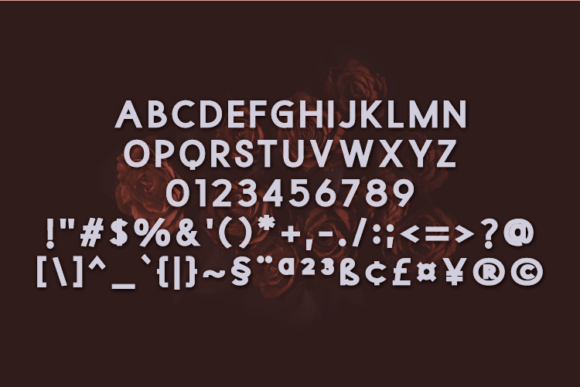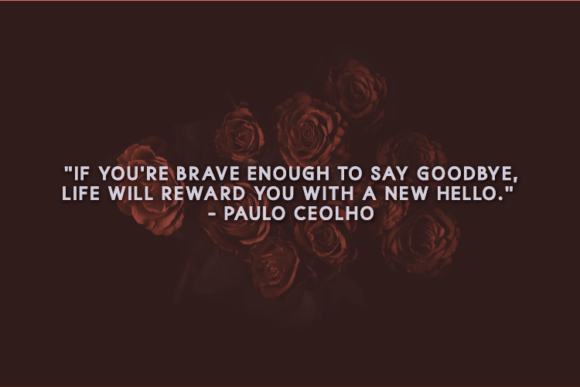
Introduction to Loveshein Font
Have you ever been stuck in the middle of a creative project, frantically searching for the perfect font to elevate your design? We’ve all been there. The search for that one elusive font that brings your vision to life can be a daunting task. But what if we told you that your search is over? Enter the Loveshein Font, a stunning sans serif font that’s about to become your new go-to design resource.
With its minimalist yet elegant style, Loveshein Font is the perfect addition to any design project. Whether you’re working on a logo, brochure, or website, this versatile font is sure to impress. And the best part? It’s available for free download, complete with a transparent background, making it a high-quality resource for designers of all levels.
Key Features of Loveshein Font
- Features a unique, modern design aesthetic, perfect for adding a touch of sophistication to any design project.
- Designed to be highly legible, making it an ideal choice for body text, headings, and titles in various creative projects.
Honest Review: Loveshein Font
As a designer, I’m always on the lookout for high-quality fonts that can elevate my creative projects. I recently had the chance to work with the Loveshein Font, and I must say, it’s been a pleasant surprise.
What works well: ✨ The Loveshein Font is incredibly versatile and can be used in a variety of design contexts, from logos to typography. Its clean and modern aesthetic makes it a great addition to any design project. The font is also free to download, which is a major bonus for designers on a budget.
Some of the key features of the Loveshein Font include:
However, there are a few limitations to consider: ⚠️ The Loveshein Font may not be suitable for very small text sizes, as it can become difficult to read. Additionally, the font may not be as unique as some other designs on the market.
Overall, I’m impressed with the Loveshein Font and would definitely recommend it to designers looking for a high-quality, versatile font for their creative projects.
Tips for Getting the Most Out of Loveshein Font
To get the most out of the Loveshein Font, use it on a transparent background to create a subtle and sophisticated design. Experiment with different font sizes and styles to add depth and visual interest to your creative project.
The Loveshein Font is ideal for various design projects, including:
- Editorial and publishing design
- Marketing materials and advertisements
Alternatives to Loveshein Font
When searching for a high-quality font to use in your creative project, you may have come across Loveshein Font. However, if you’re looking for something similar but with a unique twist, here are a few alternatives to consider.
Great Vibes Font is a beautiful, handwritten font that is perfect for adding a personal touch to your design. It features a high-quality design and a transparent background, making it easy to use on any background.
When to use: Great Vibes Font is ideal for creative projects that require a touch of elegance and sophistication, such as wedding invitations or greeting cards.
How it compares: Great Vibes Font is similar to Loveshein Font in its elegant and refined style, but it has a more whimsical feel to it.